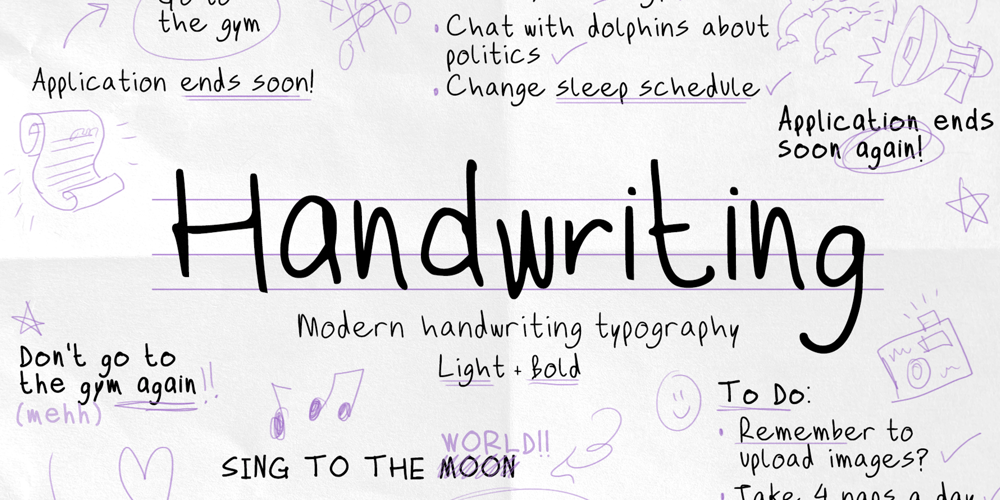
Handwriting
Handwriting font
Handwriting Font Family was designed by Carlos Fernandez Plaza and published by Headquarters. Handwriting contains 2 styles and family package options. Introducing “Handwriting Volume I” the ultimate handwritten font designed exclusively for note-takers seeking the perfect blend of style and practicality. Embrace the art of handwriting without sacrificing legibility or elegance.With meticulously crafted curves and strokes, “Handwriting Volume II Font” captures the charm of natural handwriting, making every note-taking experience a joy. Whether you’re jotting down important meeting minutes, sketching out creative ideas, or simply organising your thoughts, this font elevates your note-taking game to new heights.Say goodbye to dull and monotonous note pages and hello to a world where each word is a work of art. Watch as your thoughts flow seamlessly from pen to paper, leaving behind a trail of sophistication and flair.